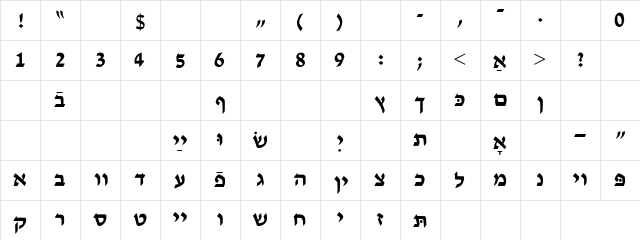
Ain Yiddishe Font-Modern Regular
Design Context for Ain Yiddishe Font-Modern Typeface
Ain Yiddishe Font-Modern takes a measured approach to typography — its balanced proportions and neutral character make it a reliable workhorse for both digital and print work.